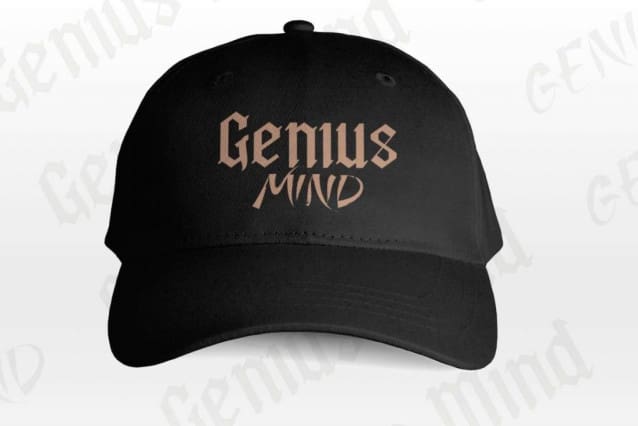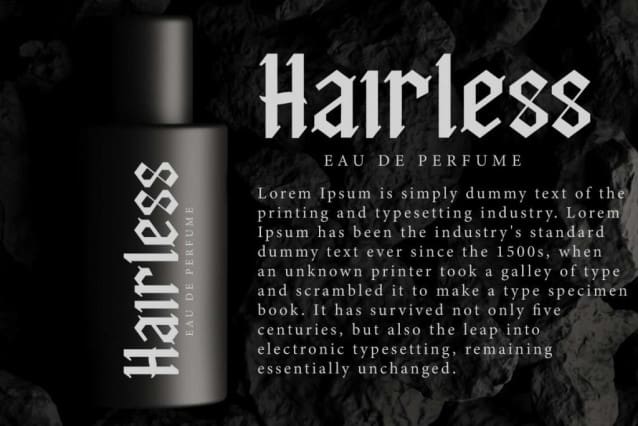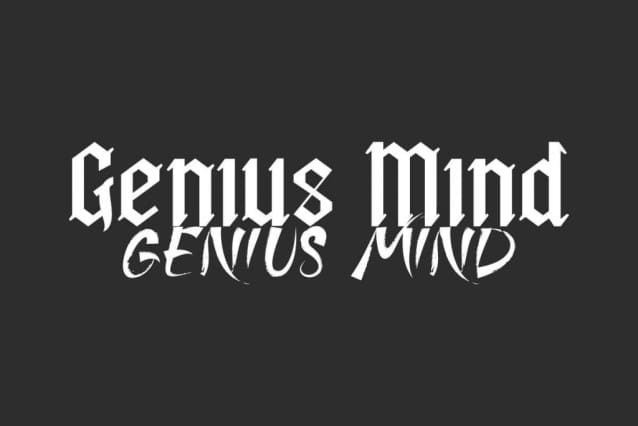
Genius Mind Font
Genius Mind Font is a mysterious font duo with two different styles : Gothic Display and Horror Brush Font. These two fonts complement each other in two different styles, bold blackletter and stylish brush. It will be suitable for many industries, such as accessories, custom design, fashion, interior design, marketing, movie, music, photography, publishing, and many more!
Genius Mind Font has includes full set of Uppercase and Lowercase Basic Character, exceptions (for stylish brushes use the all caps character), Numerals and Punctuation to provide perfection that you will love making it great for many designs, such as brand logo, business card, label, printing design, poster, product packaging, quote, web page, etc.